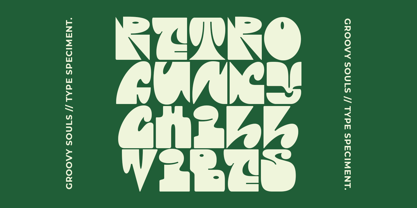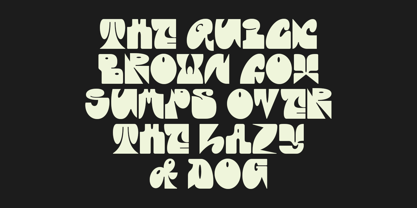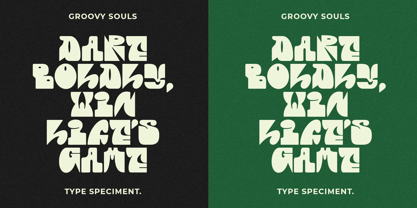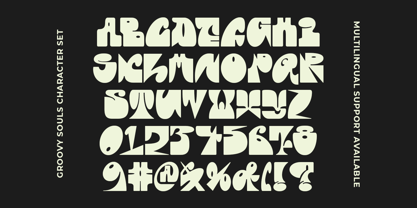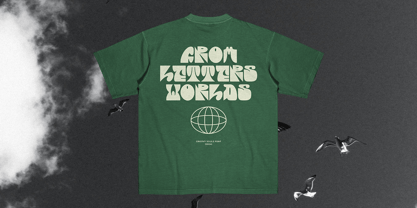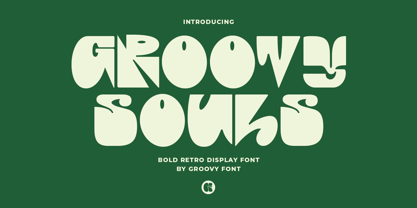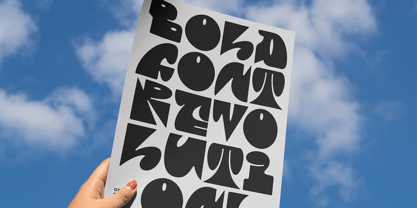
Groovy Souls
by Groovy Font
The Groovy Souls Font Family was designed by Ahmad Ginanjar Riyadi and published by Groovy Font. Groovy Souls contains 1 styles. More about this family
Groovy Souls is a Bold Retro Display Font.
The font is meticulously crafted and is versatile for various design projects, from posters to logos and other graphic designs.
With its strong retro vibe, this font adds a classic and funky touch to your designs. It is often used to evoke a vintage or nostalgic feel in creative projects.
Designers: Ahmad Ginanjar Riyadi
Foundry: Groovy Font